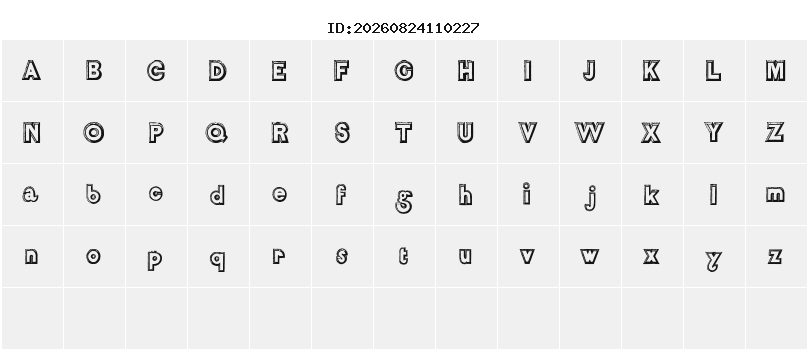
• Font Name: Salon de Coiffure
• Full Font Name: Salon de Coiffure
• Designer: Imagex
About Salon de Coiffure.ttf
Salon de Coiffure.ttf is a modern, elegant sans-serif font designed for ultimate readability and visual harmony. Perfect for branding, headlines, web design, and print materials.